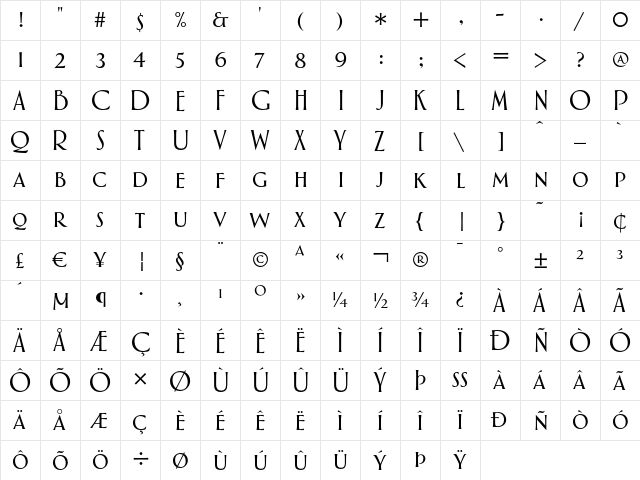
Aphasia BT Regular
Design Context for Aphasia BT Typeface
Aphasia BT offers clean, dependable letterforms without strong stylistic allegiance, making it a practical choice for designers who need flexibility.